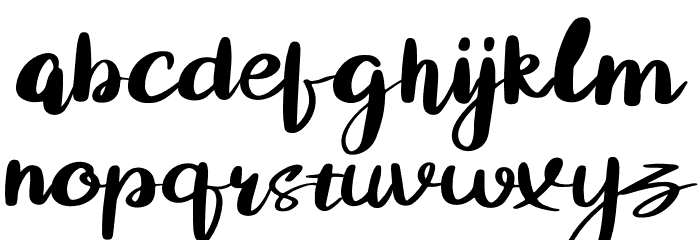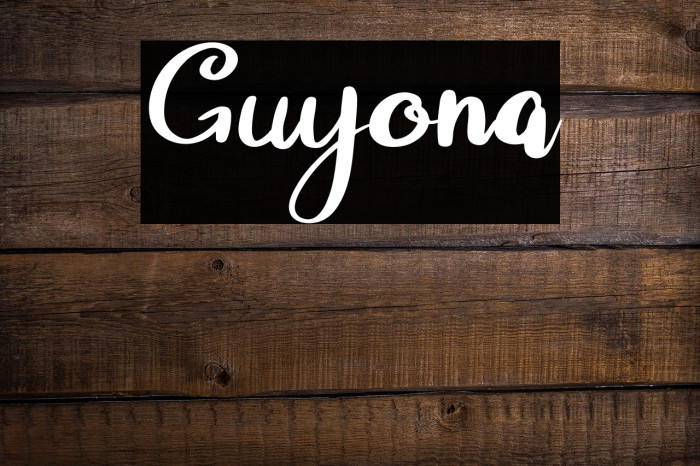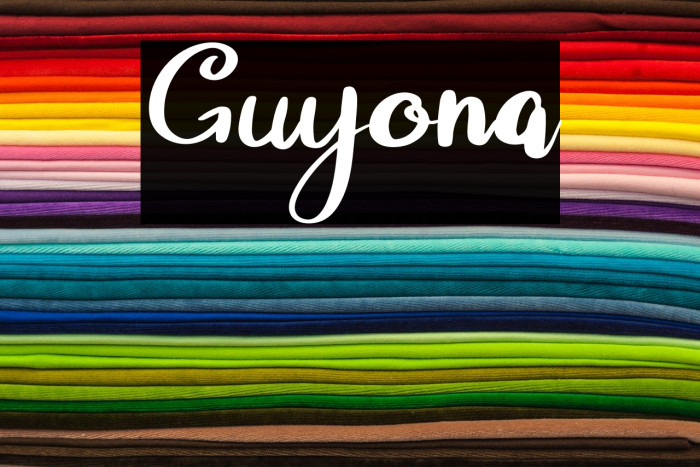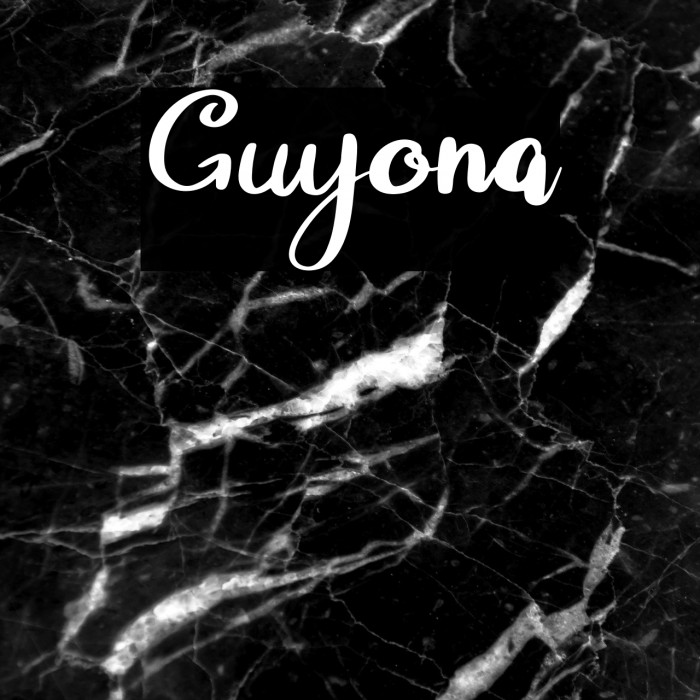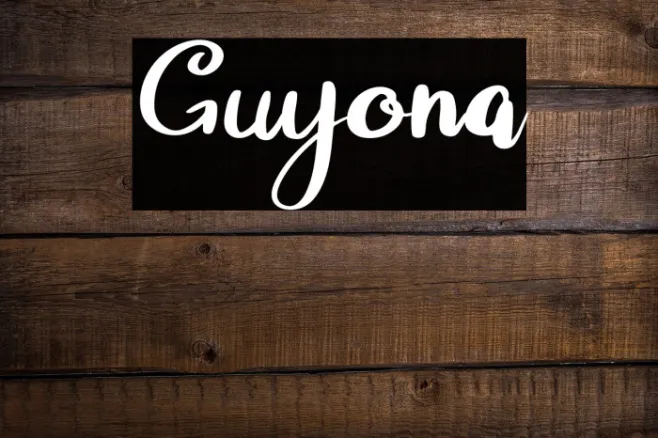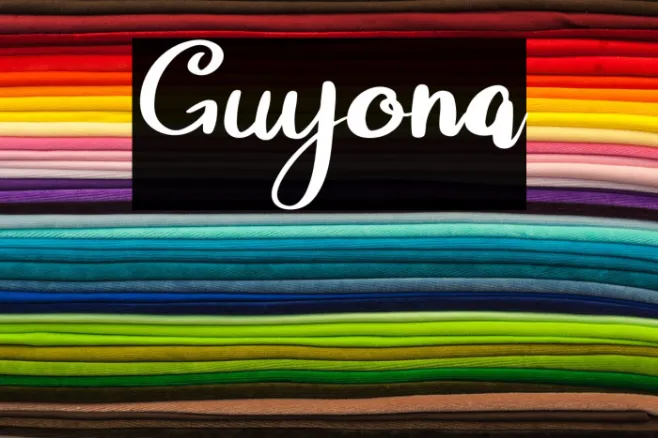
Guyona Font
This font features a playful and elegant script style with a flowing, cursive design. The uppercase letters are characterized by smooth curves and a slight slant, giving them a dynamic and lively appearance. The lowercase letters maintain a consistent flow, with some characters featuring unique loops and swashes that add to the font's charm. The overall design is bold, with thick strokes that ensure readability while maintaining a decorative flair. This font does not include numerical characters or special symbols, focusing solely on the alphabet. Its whimsical and artistic nature makes it suitable for creative projects that require a touch of elegance and personality.
A playful and elegant script font with bold, flowing cursive letters.